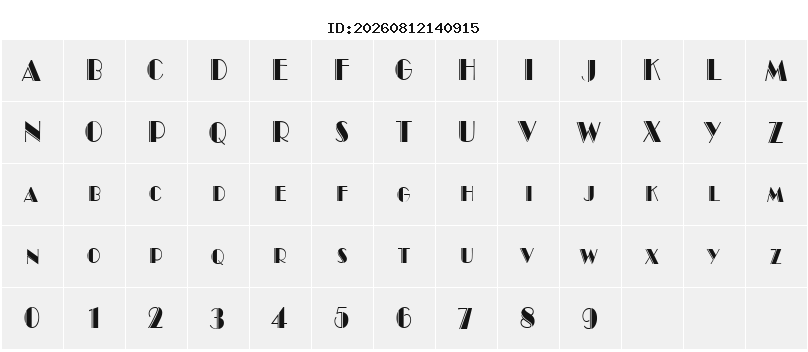
• Font Name: Ritz EngravedCondensed
About Ritz EngravedCondensed.ttf
Ritz EngravedCondensed.ttf is a modern, elegant sans-serif font designed for ultimate readability and visual harmony. Perfect for branding, headlines, web design, and print materials.